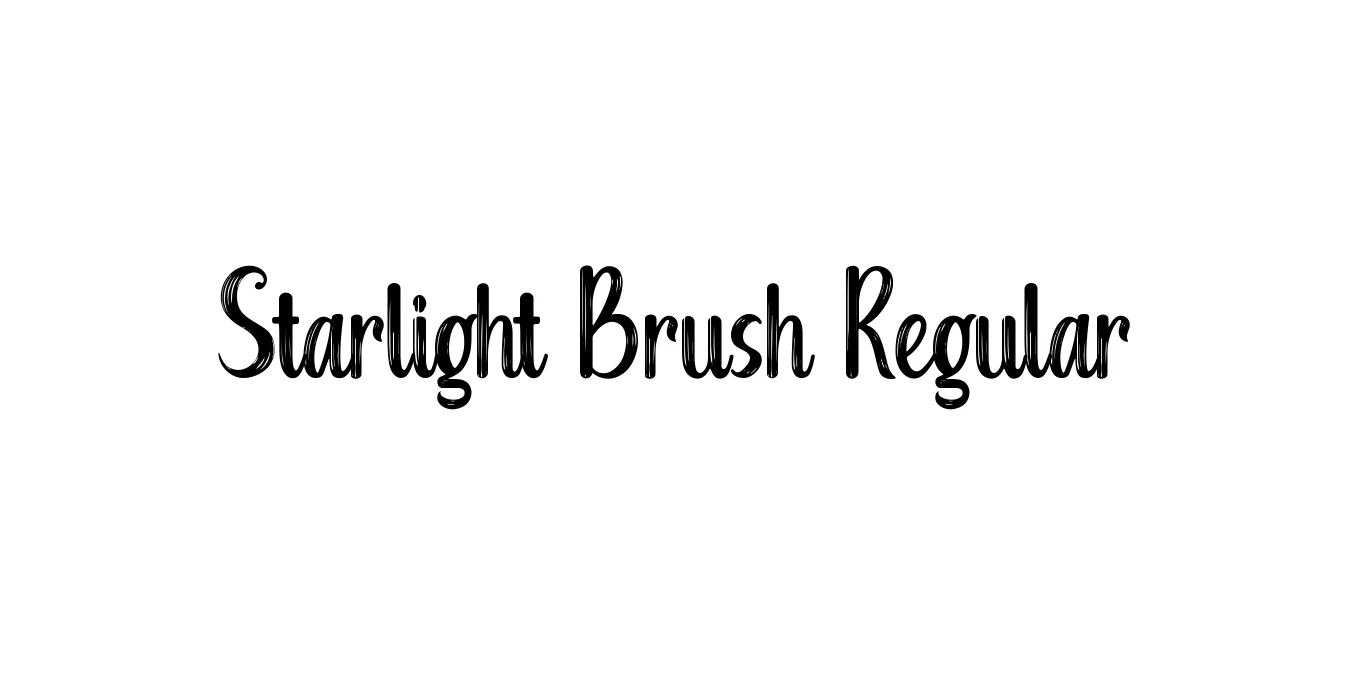
Starlight Brush Regular
Designed by Zulhelman Studio
| Font Name | Starlight Brush |
| Category | Brush / Script |
| Designer | Zulhelman Studio |
Starlight Brush Regular is a modern and expressive brush script font designed to capture the essence of handcrafted typography. With its fluid strokes and authentic texture, it mimics the natural movement of a paintbrush, making it an ideal choice for projects that require a touch of artistic flair and a strong personal connection. The font features a rugged yet sophisticated edge that works exceptionally well in contemporary design environments.
This typeface is highly versatile, featuring a wide range of ligatures and alternates that allow designers to achieve a custom, hand-lettered look with ease. Whether used for large-scale branding or digital media, Starlight Brush Regular stands out for its high-impact visual style and legible yet energetic character design, ensuring that every word carries a unique and dynamic presence in any layout.
Starlight Brush Regular Best Uses
Perfect for creating unique, high-impact brand identities with a personal touch.
Ideal for Instagram posts, quotes, and eye-catching digital marketing banners.
Adds a rustic and authentic feel to product labels and artisanal goods.
Excellent for invitations and signage that require an elegant yet handmade aesthetic.